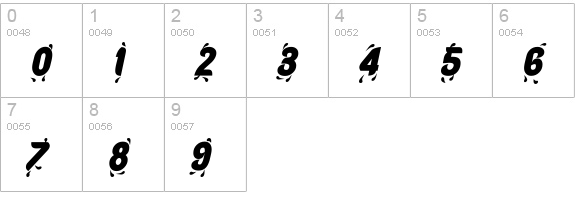
RainDanceSSK BoldItalic Font Details
Introducing RainDanceSSK BoldItalic, an extraordinary font that effortlessly captures the essence of elegance and creativity. This captivating typeface unveils a unique blend of boldness and fluidity, making it a striking choice for any design project that requires a touch of sophistication. RainDanceSSK BoldItalic commands attention with its beautifully crafted curves and distinctively slanted letterforms. The strong yet graceful strokes create a harmonious balance, leaving a lasting impression on anyone who encounters this remarkable font. Designed for those seeking a touch of individuality, RainDanceSSK BoldItalic brings a sense of adventure to any text it graces. Whether used in branding, advertising, or editorial design, this font exudes an air of confidence and originality that sets it apart from the rest. But what makes RainDanceSSK BoldItalic even more exceptional is that it is freely available to download at FontsMarket.com. This means that you can effortlessly incorporate this extraordinary font into your creative projects without any cost. It's a rare opportunity to access such a high-quality typeface without breaking the bank. So, don't miss out on this chance to elevate your designs with the captivating beauty of RainDanceSSK BoldItalic. Download it for free at FontsMarket.com and unlock a world of possibilities, where elegance and creativity merge seamlessly to create truly remarkable typography.